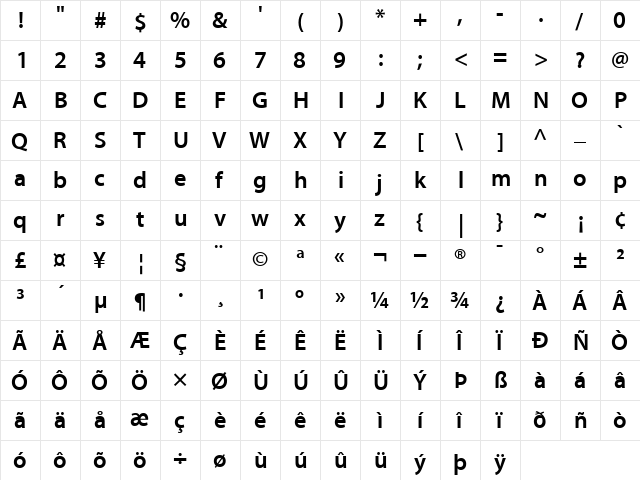
AdobeCorporateIDMyriad-SemiBold Semi Bold
Design Context for AdobeCorporateIDMyriad-SemiBold Typeface
AdobeCorporateIDMyriad-SemiBold takes a measured approach to typography — its balanced proportions and neutral character make it a reliable workhorse for both digital and print work. The heavy weight commands attention and anchors typographic hierarchies.
Pro Tip: Use AdobeCorporateIDMyriad-SemiBold in both headline and body roles to test its range before committing to a single application.